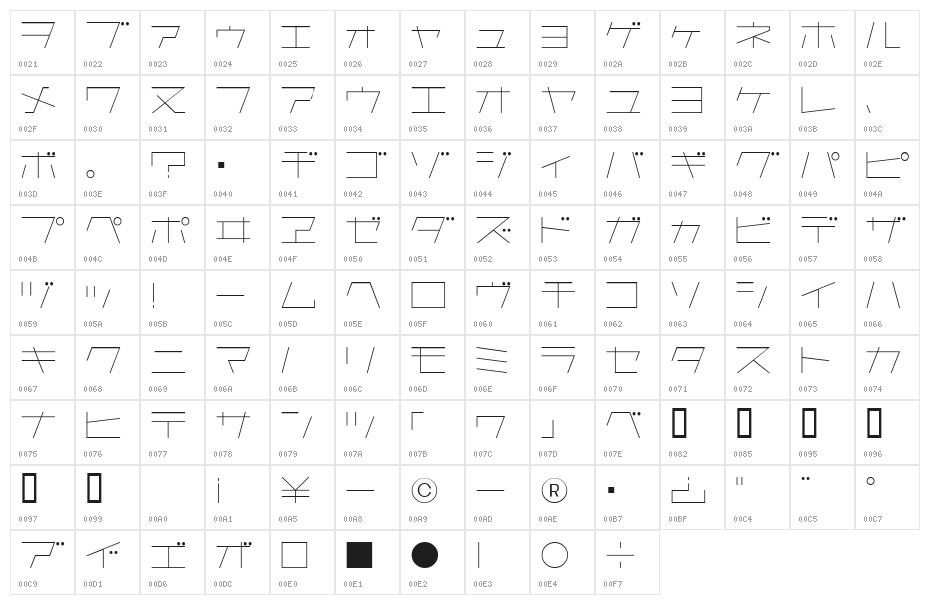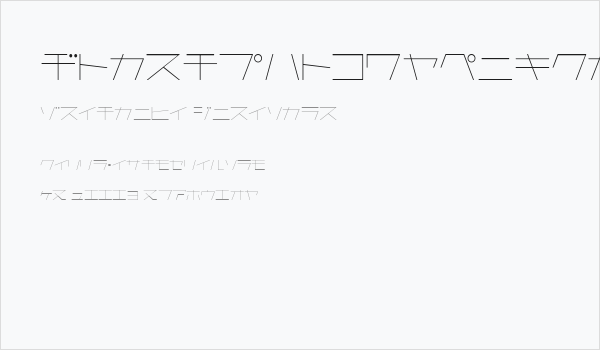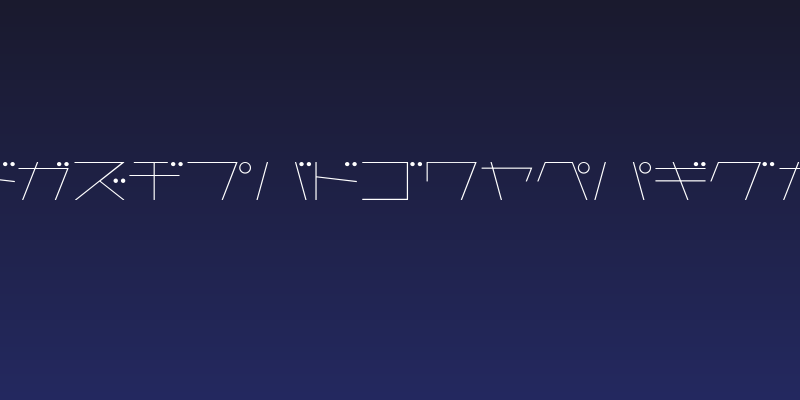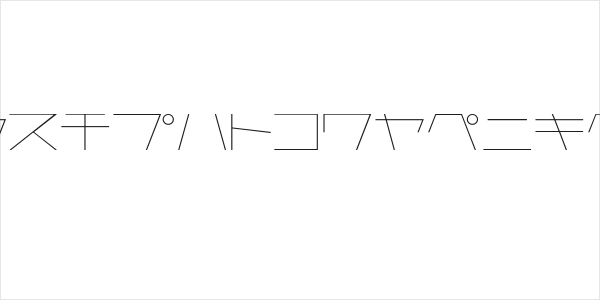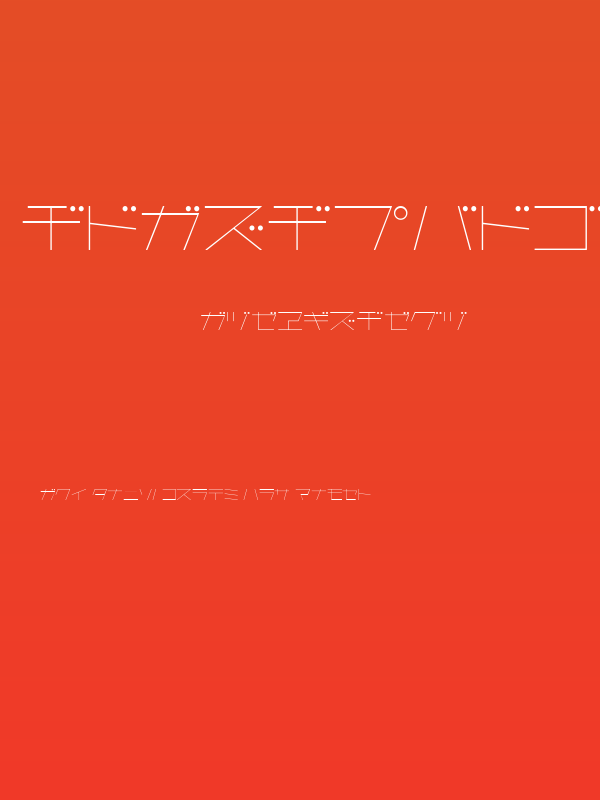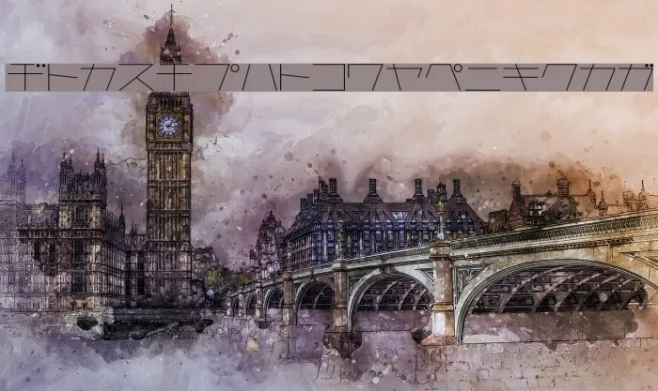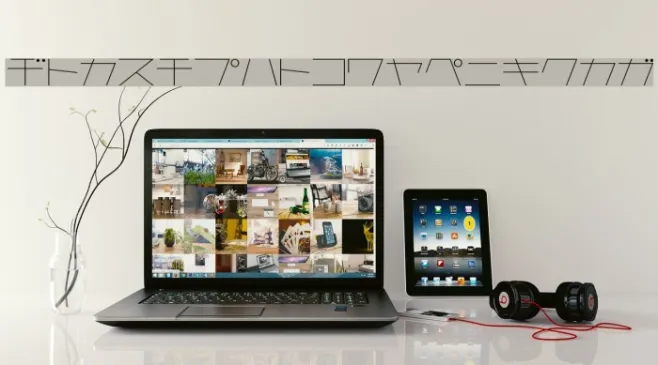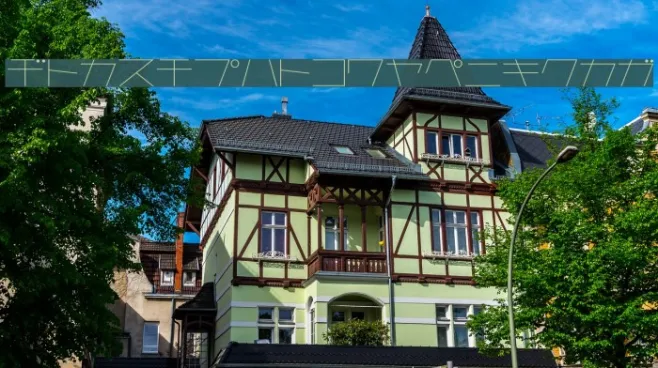
AstraKfsb07LightT Font
AstraKfsb07LightT Description
This font features a minimalist and geometric design, characterized by thin, straight lines and sharp angles. The characters are constructed with a consistent stroke width, giving the font a clean and modern appearance. The overall style is reminiscent of architectural blueprints or technical drawings, with a focus on precision and clarity. The spacing between characters is uniform, contributing to a balanced and orderly look. This font's simplicity and elegance make it suitable for a variety of design applications where a contemporary and sophisticated aesthetic is desired.
| Use Case | Logos, Technical documents, Modern branding |
| Proposed Projects | Ideal for architectural designs, technical documents, modern branding, and minimalist posters. |